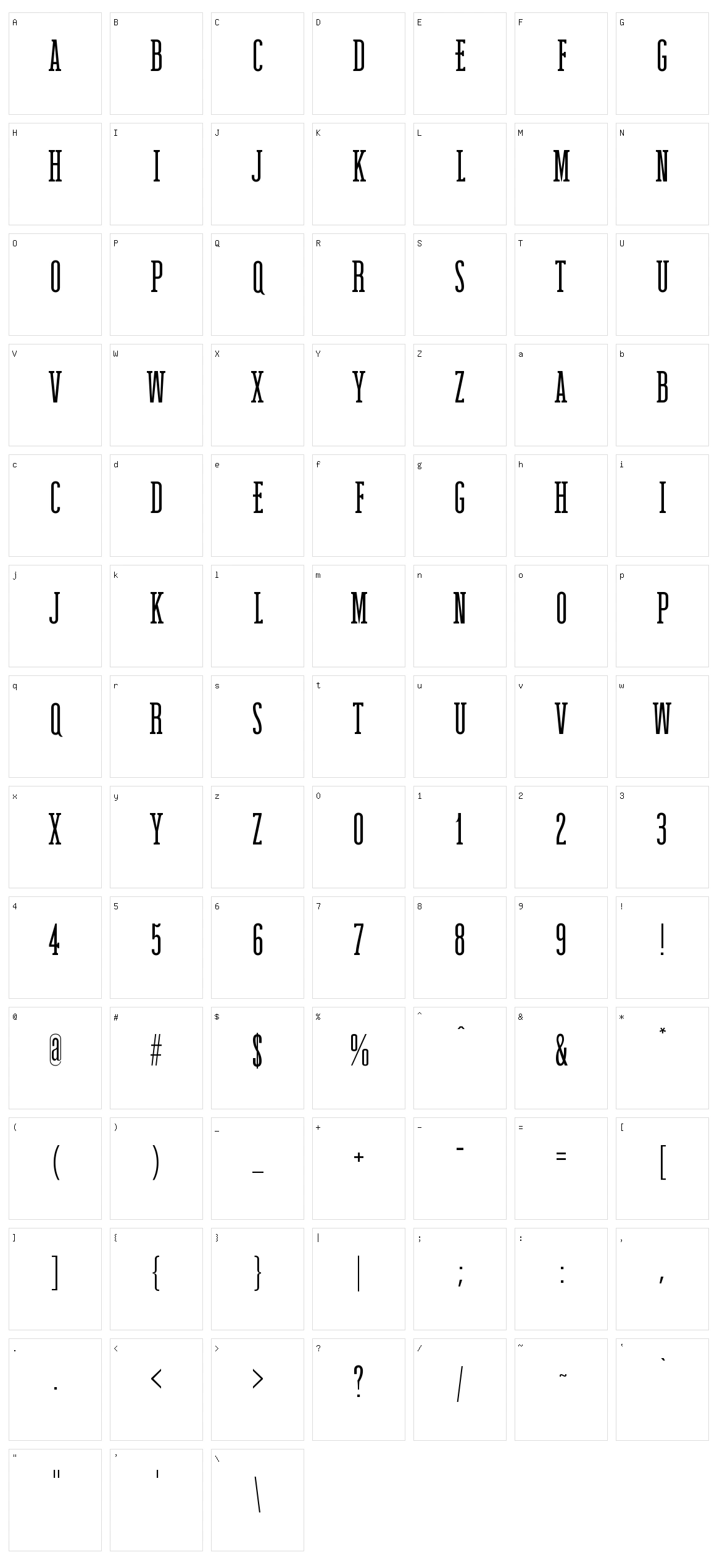
The free font Western Wonderment is carefully designed by Hawtpixel, showcasing a thoughtful balance of creativity and usability and falls under the Western font style. When you download the ZIP file, it contains only 42.64 KB of font files, making it lightweight and quick to download. Please review the license details below to understand permitted usage and distribution rights. If license information is not available, we recommend using this font for personal projects only or contacting the author directly for commercial usage permissions.